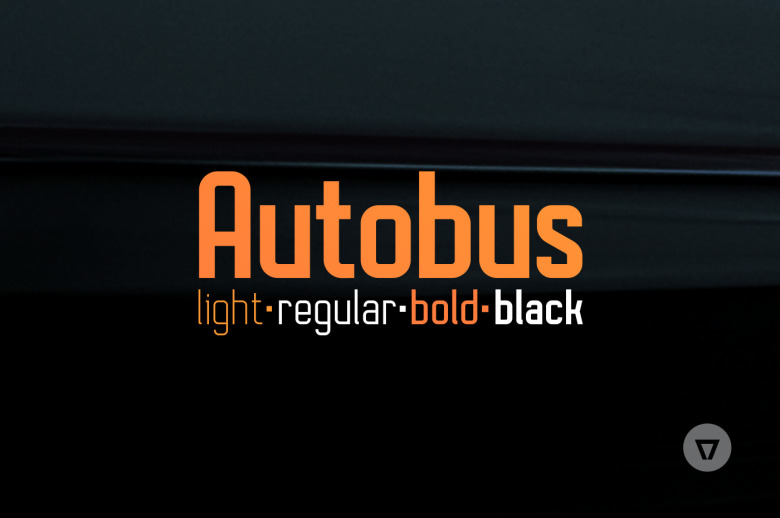
Autobus Font
Autobus is a cool, robotic styled sans serif font. It is suitable for any branding project like logos, t-shirt printing, sport designs, and more. It will look outstanding in a wide range of contexts.
Autobus Sans Serif Font